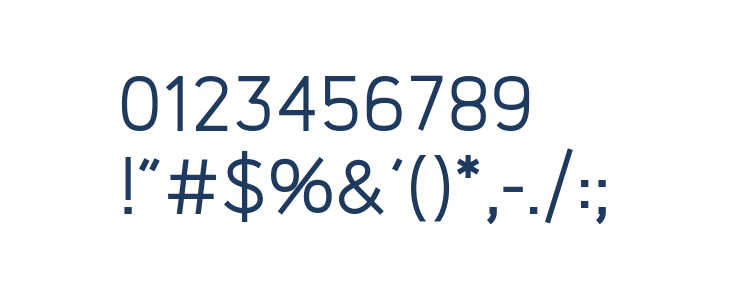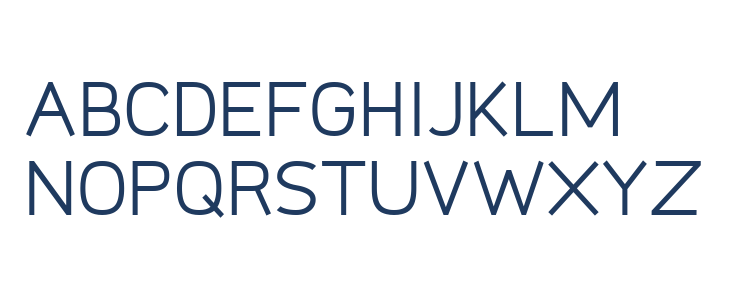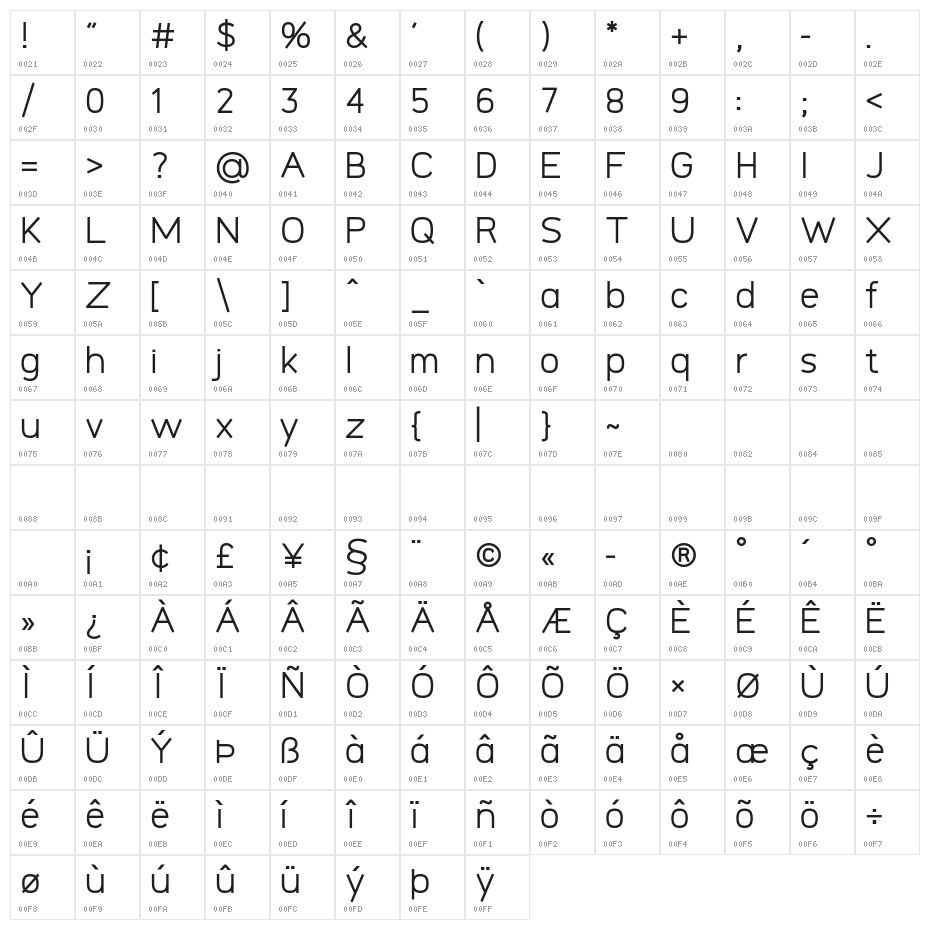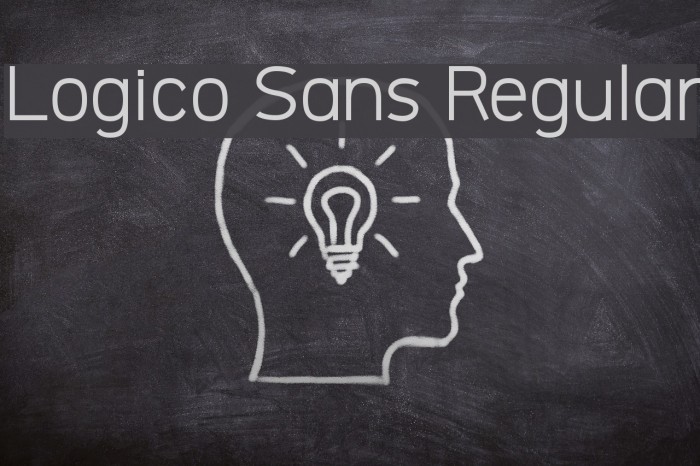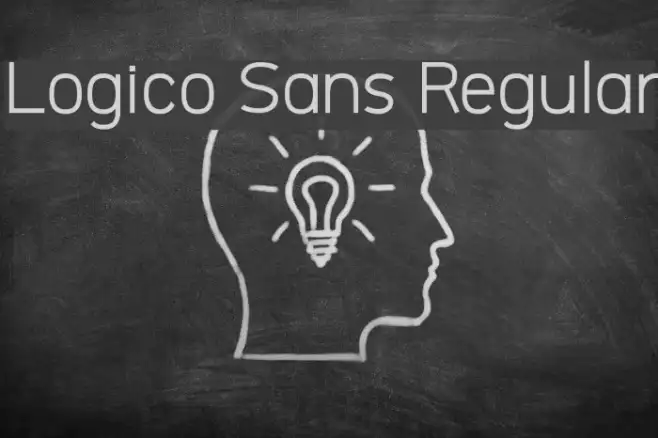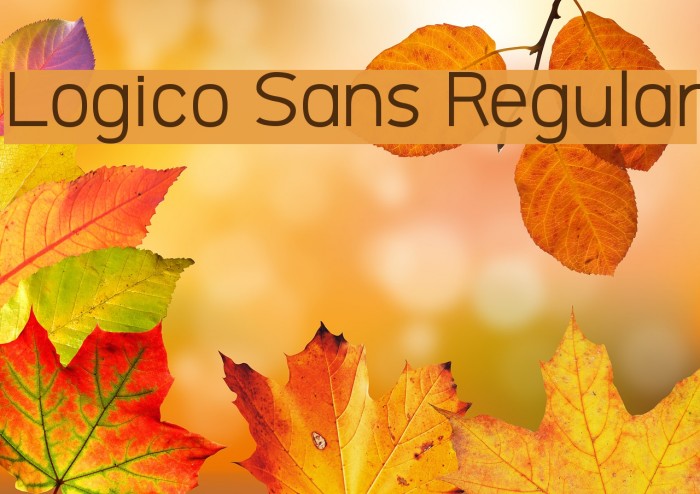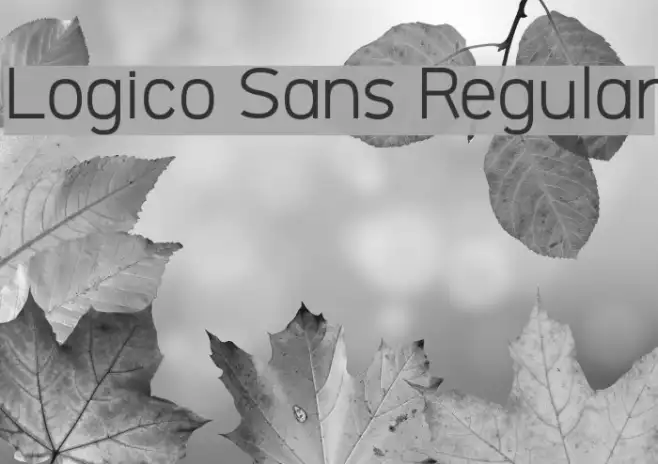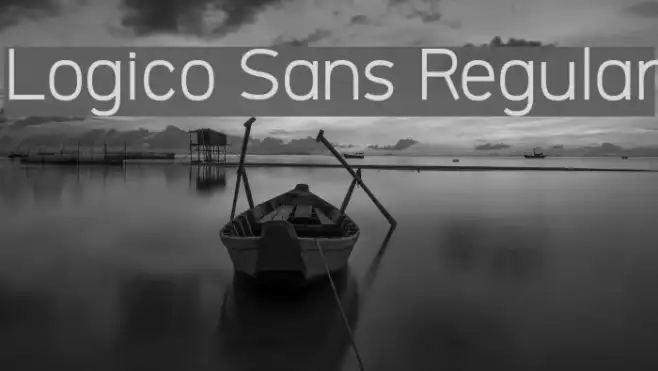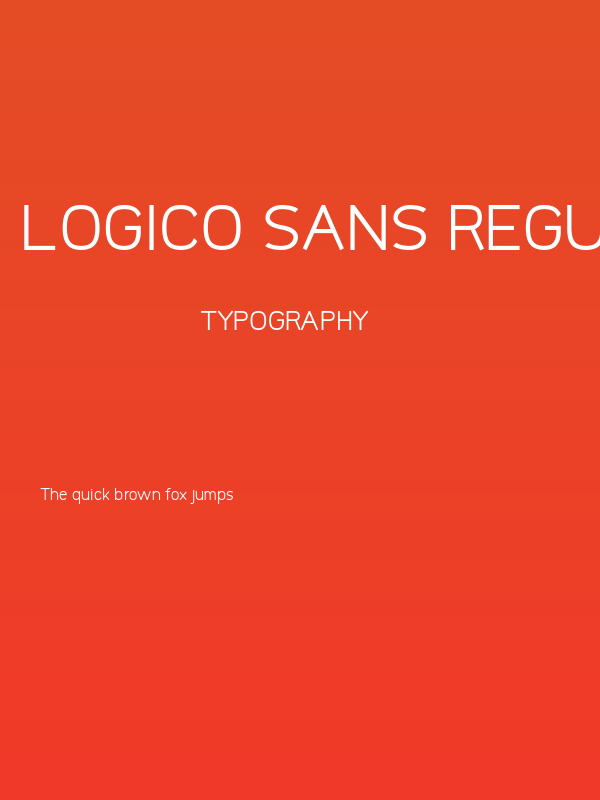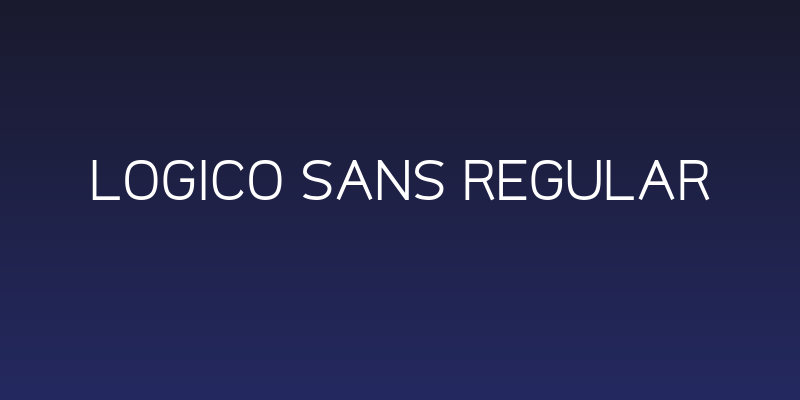
Logico Sans Regular Font
Logico Sans Regular Description
This font features a clean and modern sans-serif design, characterized by its simplicity and readability. The letters are uniform in stroke width, providing a balanced and harmonious appearance. The uppercase and lowercase letters are well-proportioned, with a slight geometric influence that enhances its contemporary feel. The numerals are clear and distinct, ensuring legibility in various contexts. Special characters are designed with the same attention to detail, maintaining consistency across the character set. This font is versatile, making it suitable for both digital and print media.